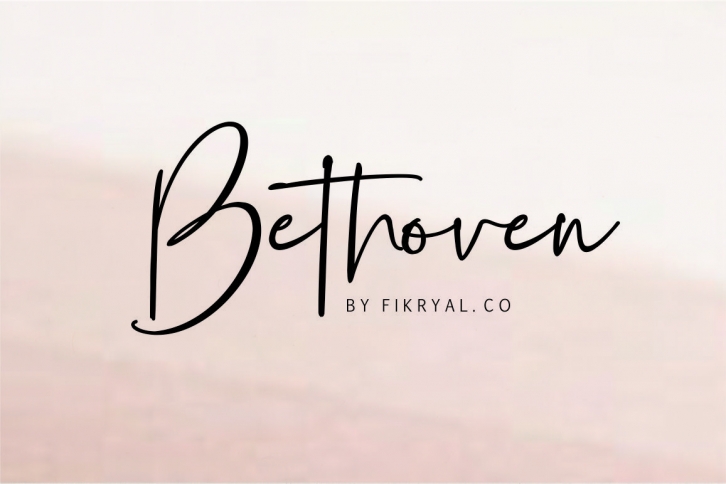
Bethoven is a trendy and unique font with an authentic style. It was designed by fikryal and it's a great choice for creative people who need such a font. It was released on March 28, 2019 and the file size is 10.86 MB. Bethoven will add an organic vibe to any design idea!